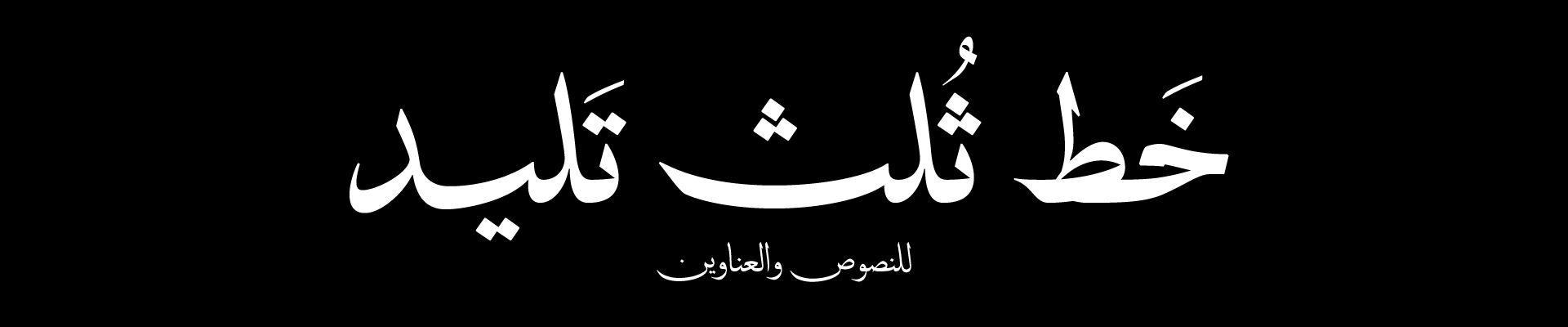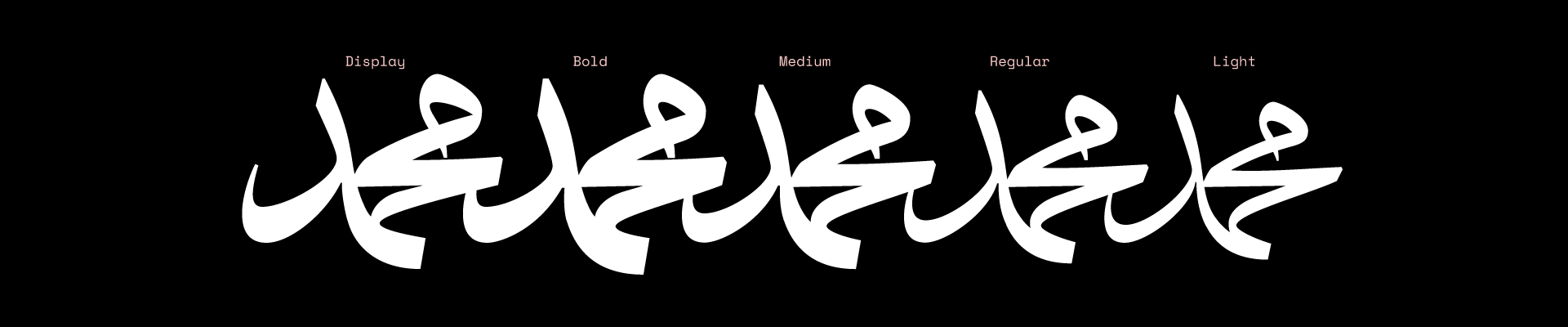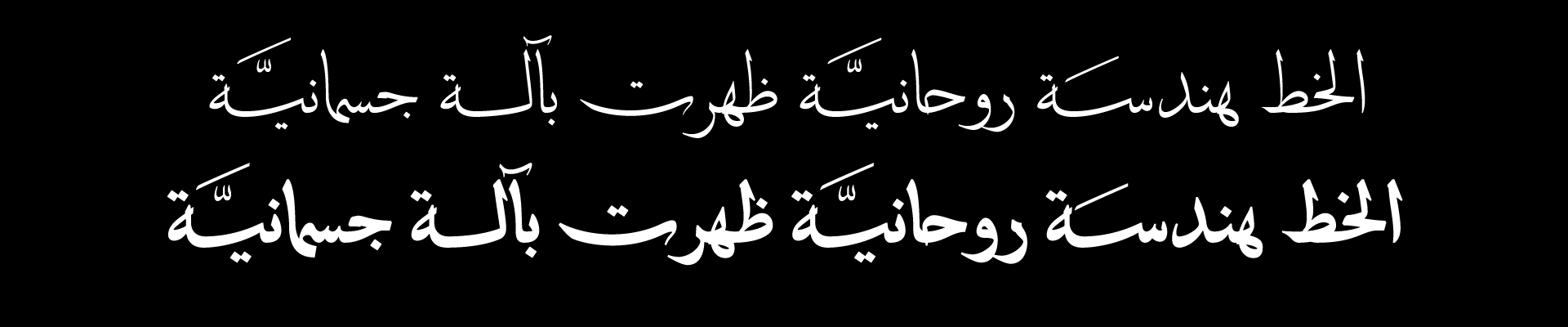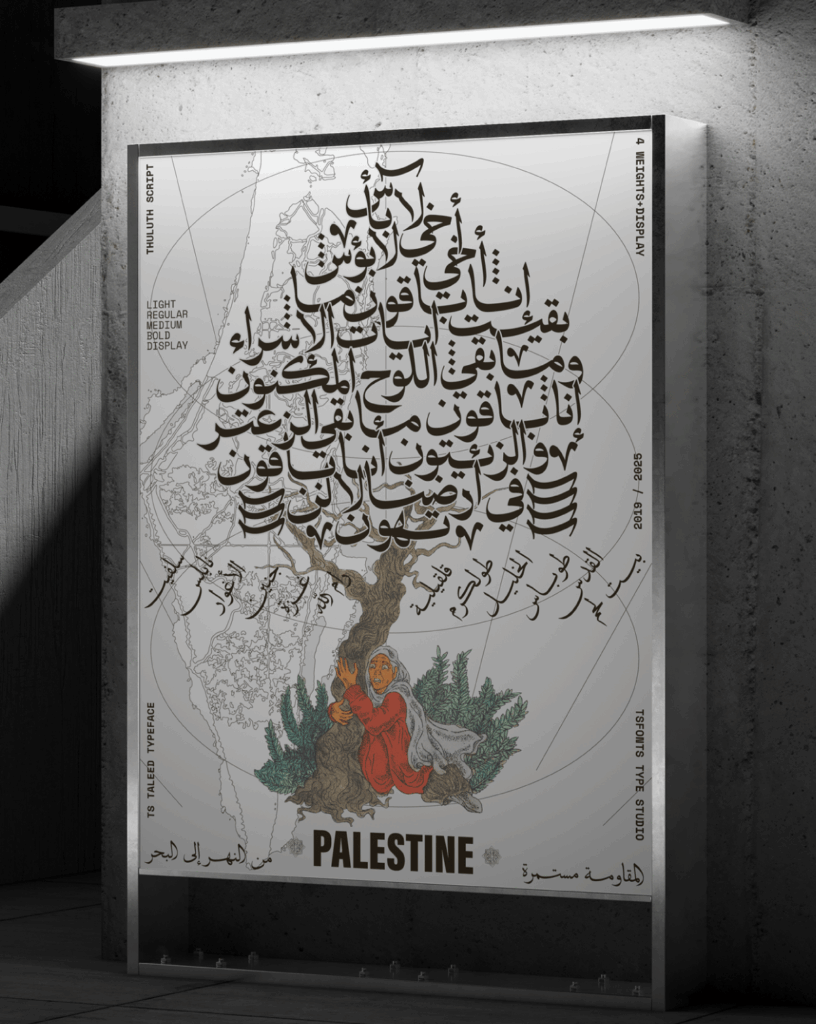
About Taleed Thuluth Font
Taleed typeface is a digital interpretation of the traditional Thuluth script. The project was executed with exceptional artistic and technical precision due to the complexities that make Thuluth one of the most challenging Arabic scripts to adapt into a functional typeface.
The letterforms were developed based on the calligraphic models (mashqāt) of the calligrapher Mohamed Shawqi (may he rest in peace), with carefully considered modifications to suit contemporary typesetting needs—while preserving the spirit and authenticity of the Thuluth script.
The typeface is designed to perform efficiently in both body text and display titles. The main objective behind its development was to expand its usability beyond traditional manuscripts and decorative headings.